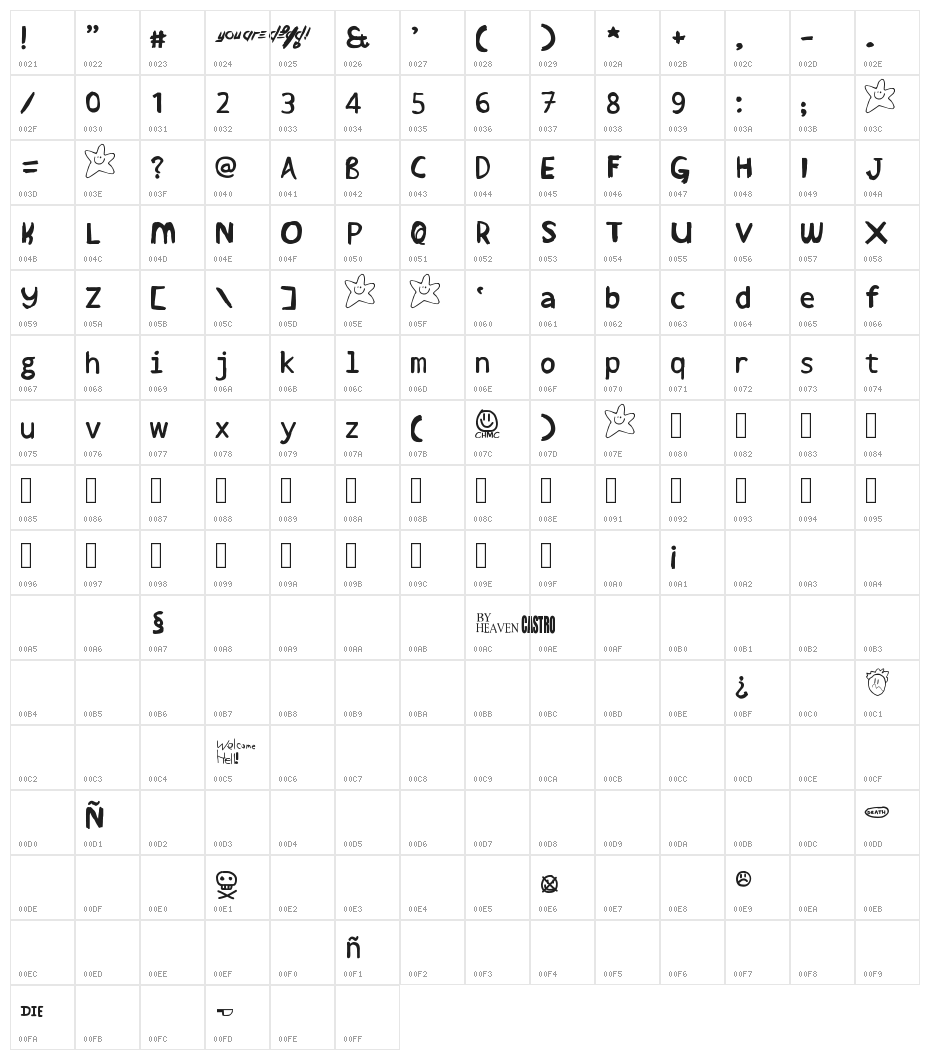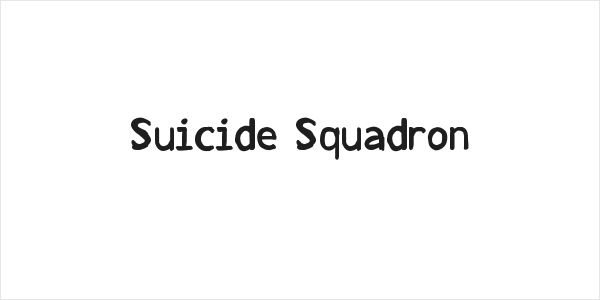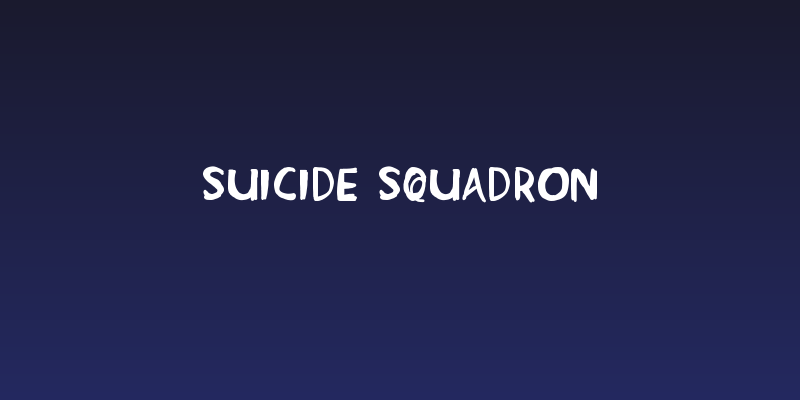
Suicide Squadron Font
Suicide Squadron Description
This font features a bold and playful style with a hand-drawn appearance. The characters are slightly irregular, giving it a casual and informal feel. The uppercase and lowercase letters maintain a consistent thickness, while the numbers and special characters complement the overall aesthetic. The font's unique personality is emphasized by its uneven edges and whimsical design, making it stand out in creative projects. Its boldness ensures readability, while the quirky style adds a touch of fun and spontaneity.
| Proposed Projects | Ideal for comic book covers, playful branding, children's book titles, and creative posters. |